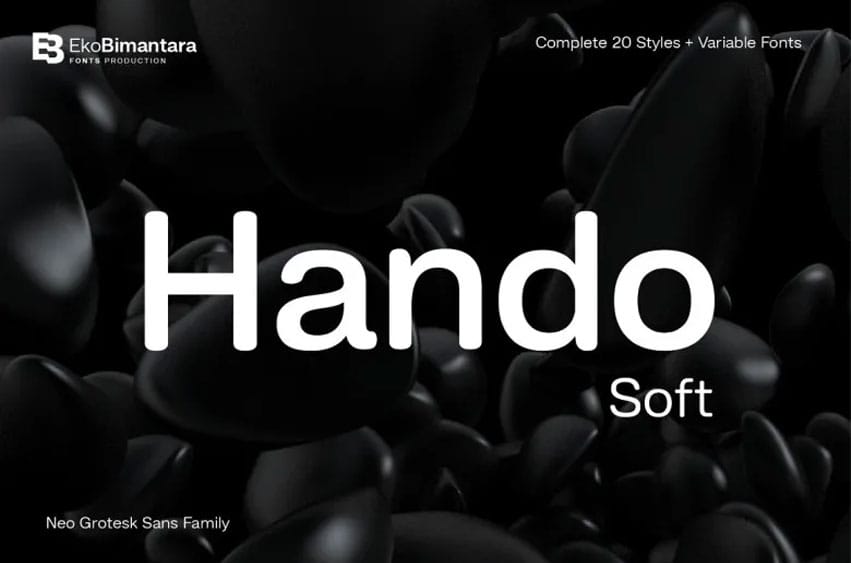
Hando Soft Font offers an alternative to the Hando Neo Grotesk sans serif font family, featuring letters with smoother and more comfortable looking letters due to their rounded ends. Hando Soft can be used in an assortment of situations; its low x-height makes it suitable for reading purposes.
The counter letterforms feature soft white spaces that make reading them far away easy, while their curvy tensions create an impression of futuristic. Furthermore, their easy strokes allow it to be used across numerous designs.
Hando is a collection of 10 styles spanning Hairline to Black with an oblique, with over 440 characters suited for use across Latin languages. Additionally, there are Opentype features like stylistic alternatives or variations in figures that add flexibility to this font family.